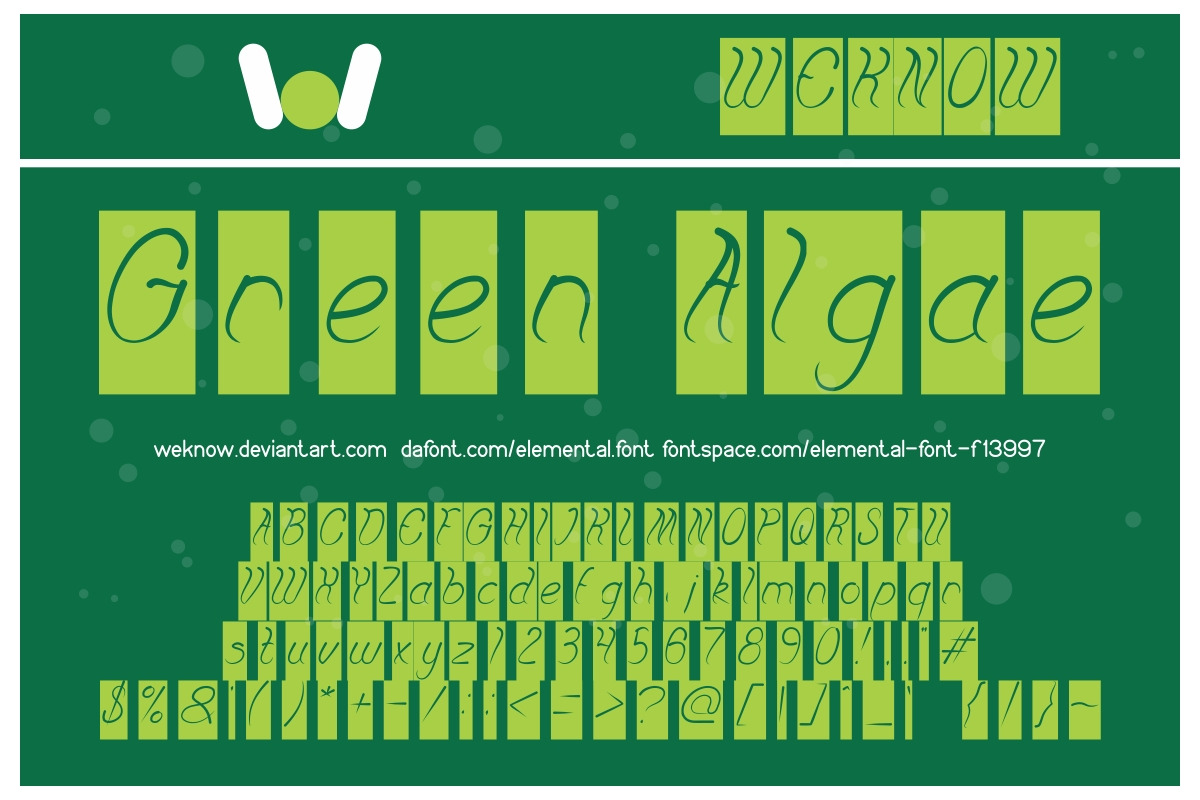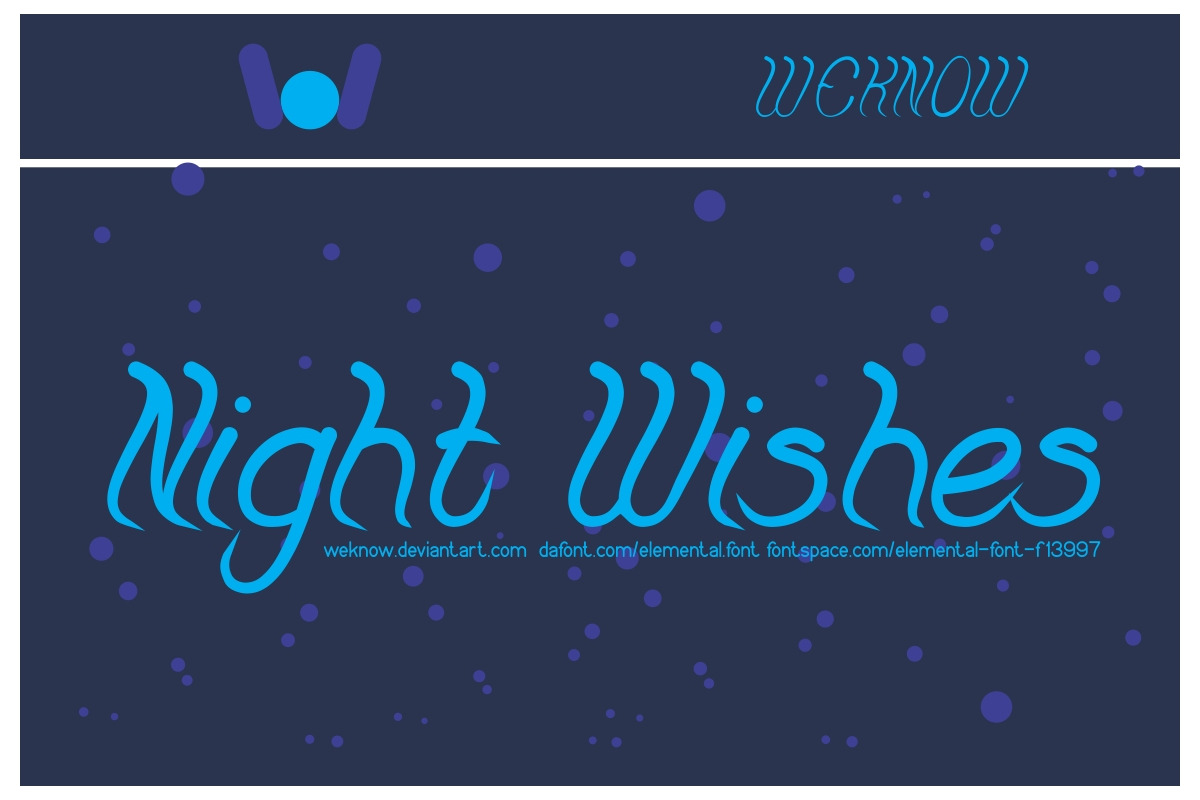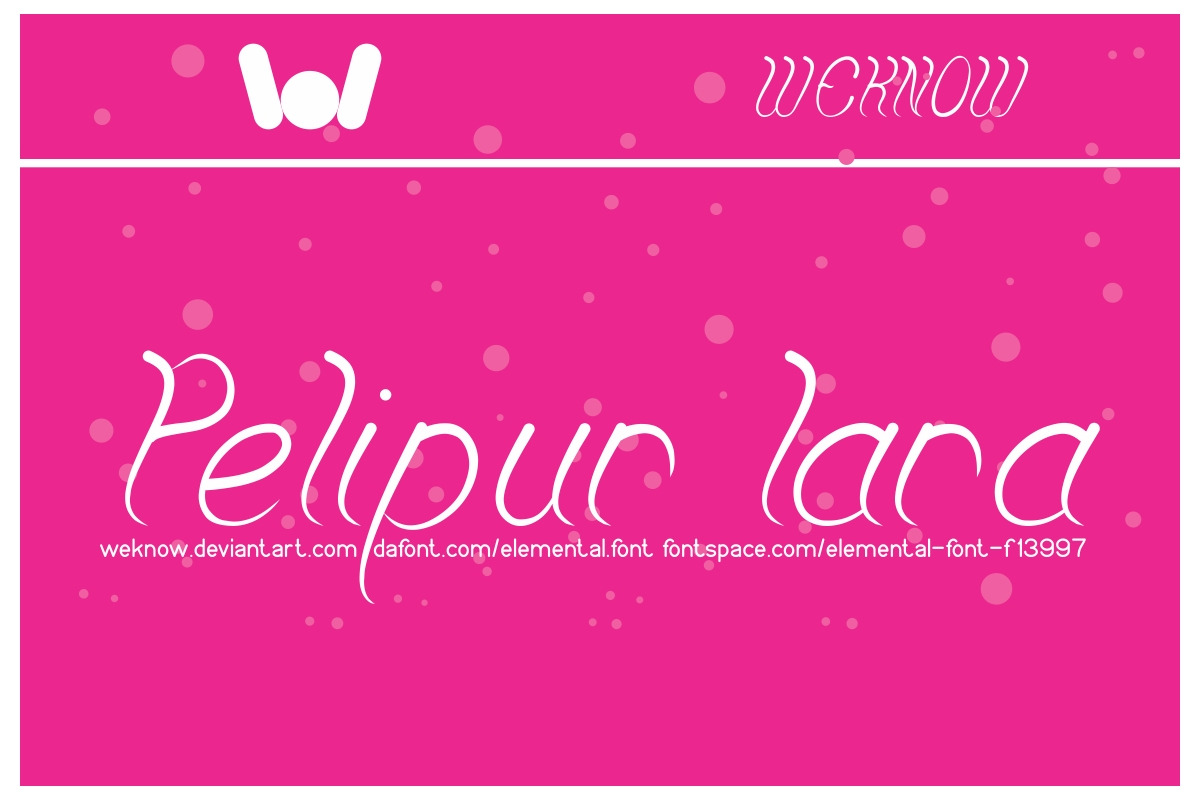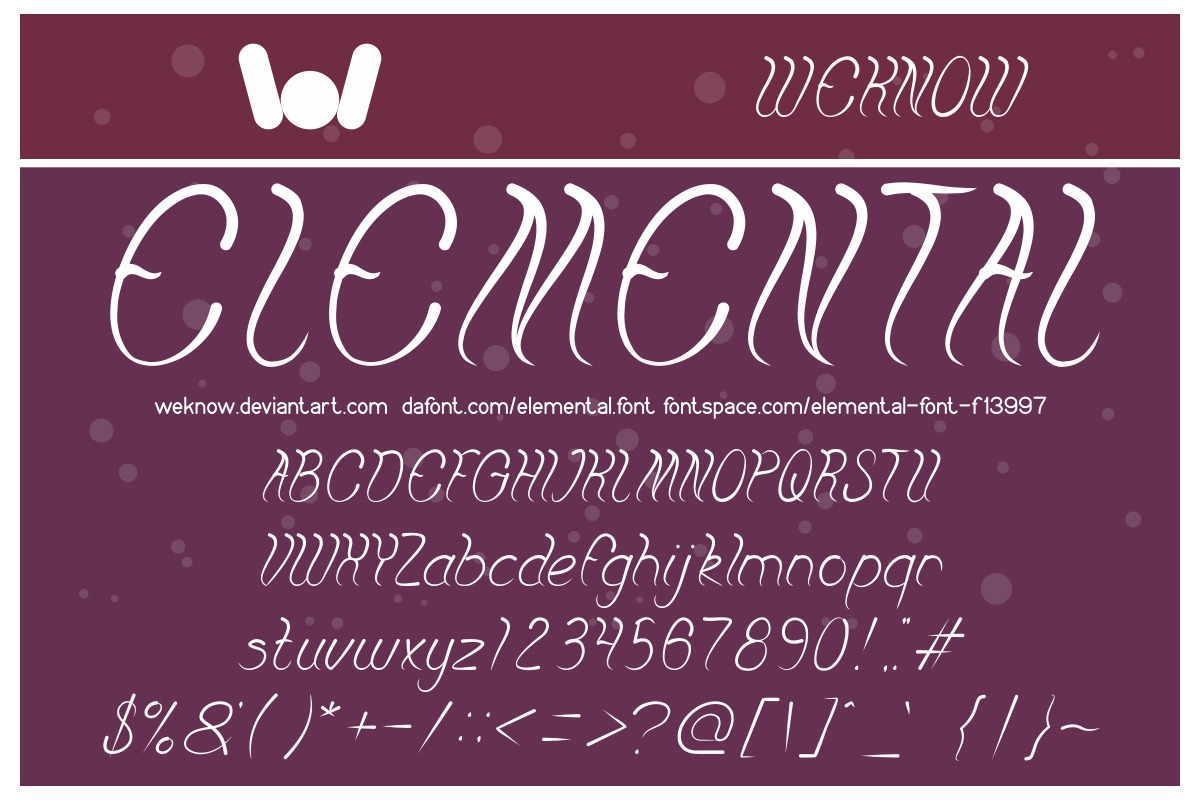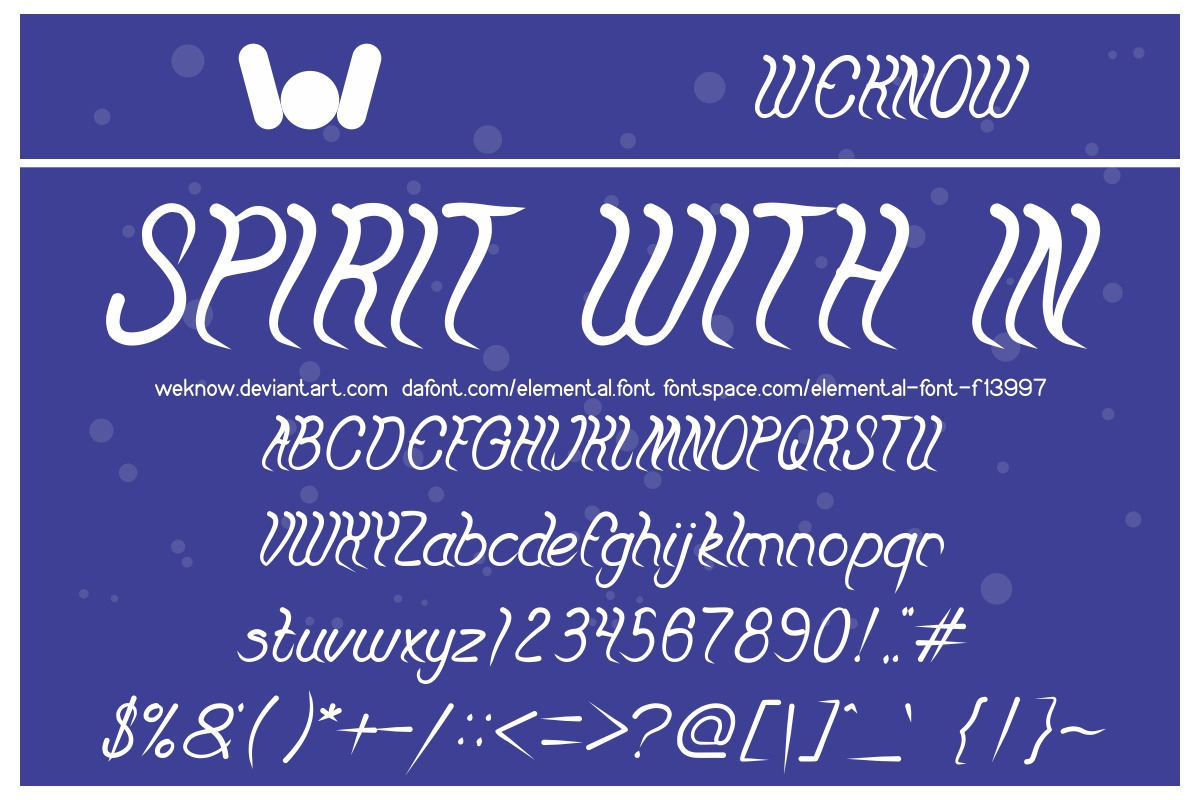
night wishes font
available style: ELEMENTAL-Bold, ELEMENTAL-Inverse
Why night wishes font is worth a look
night wishes font by weknow fits naturally into Branding, posters, packaging, typography.